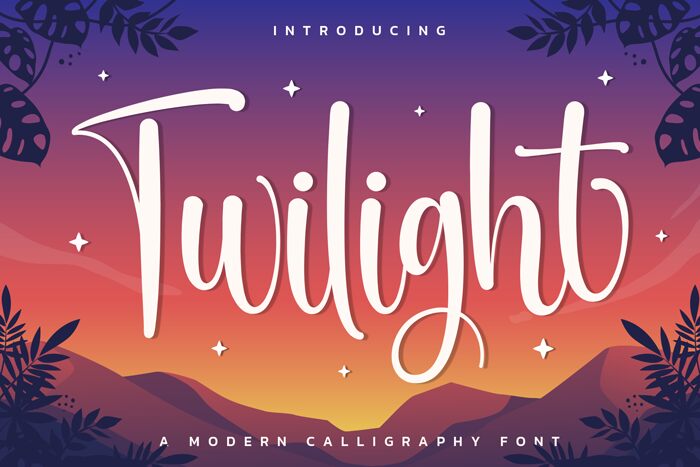
Twilight, a captivating calligraphy font by Hoperative, enchants with its semi-light weight and semi-condensed width. Its elegant strokes and graceful curves make it perfect for wedding invitations, love letters, and romantic stationery. This enchanting typeface adds a touch of sophistication to branding projects such as luxury hotels or high-end fashion labels. With its fluid lines and delicate details, Twilight also brings an air of magic to fantasy book covers or whimsical illustrations. Let this ethereal font weave its spell on your next project, creating an unforgettable visual experience for your audience.